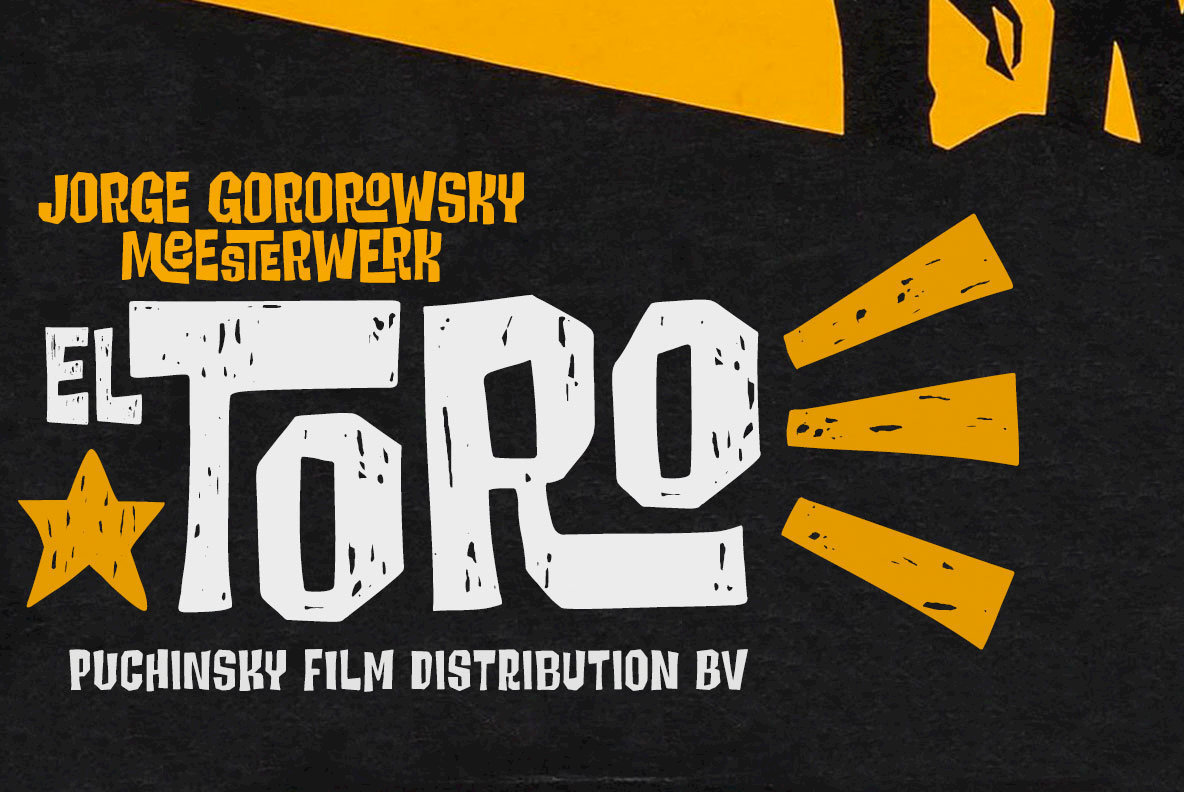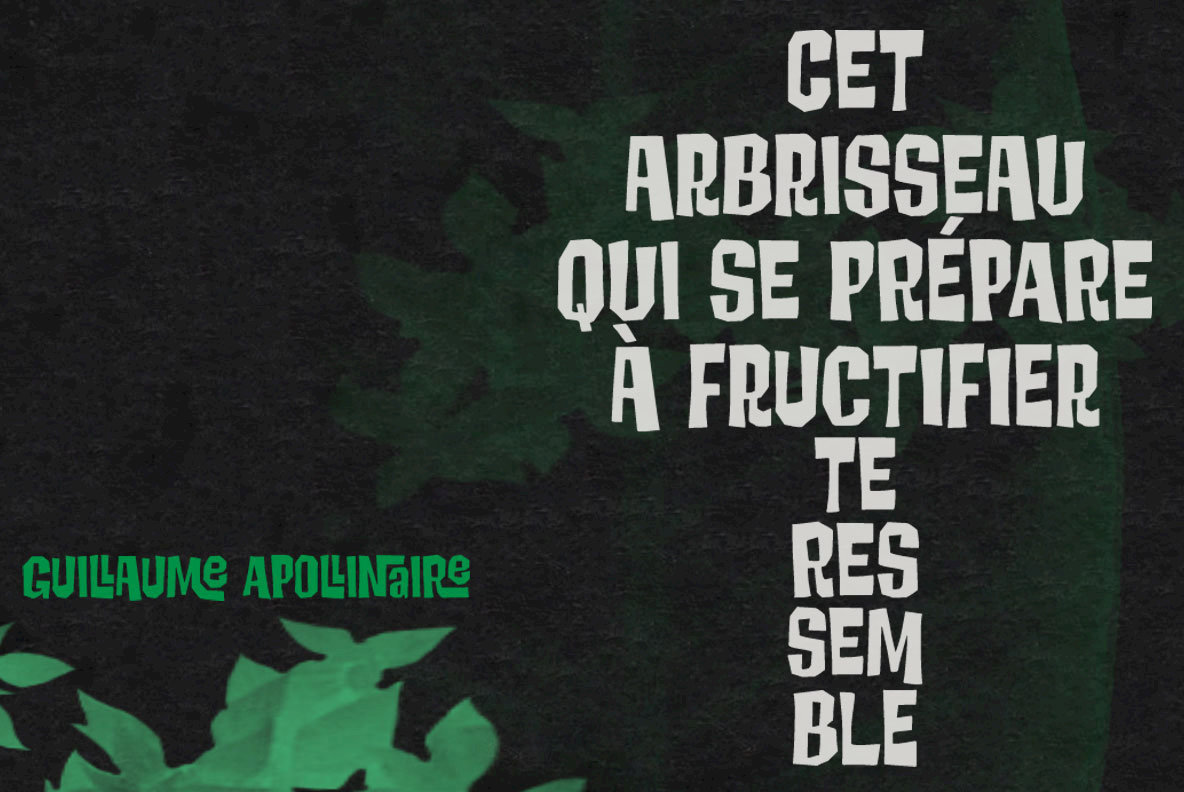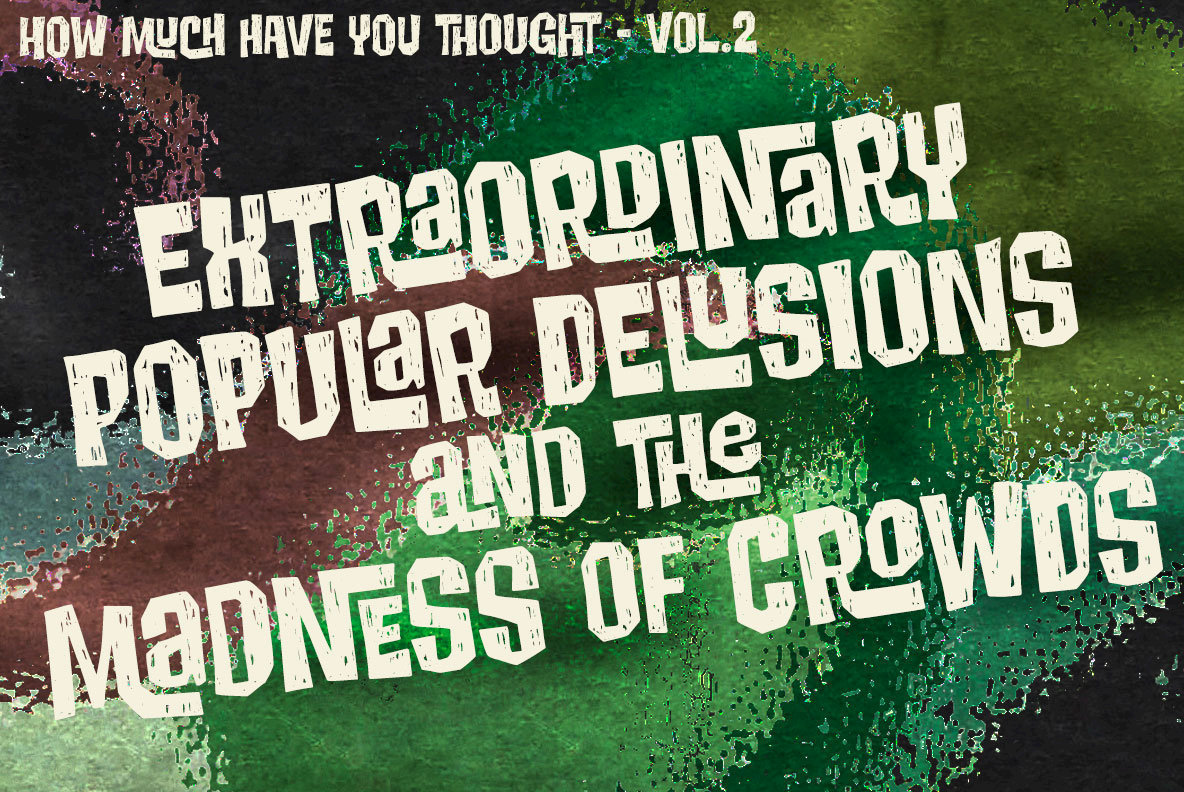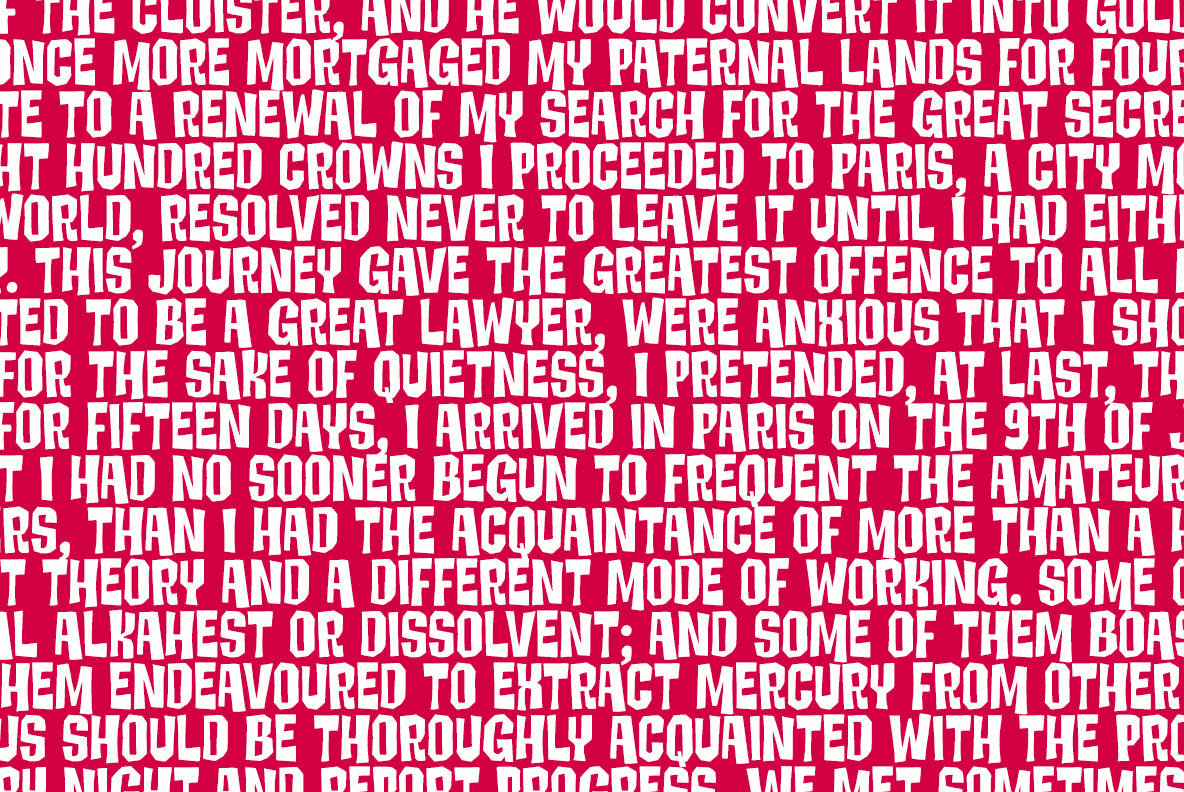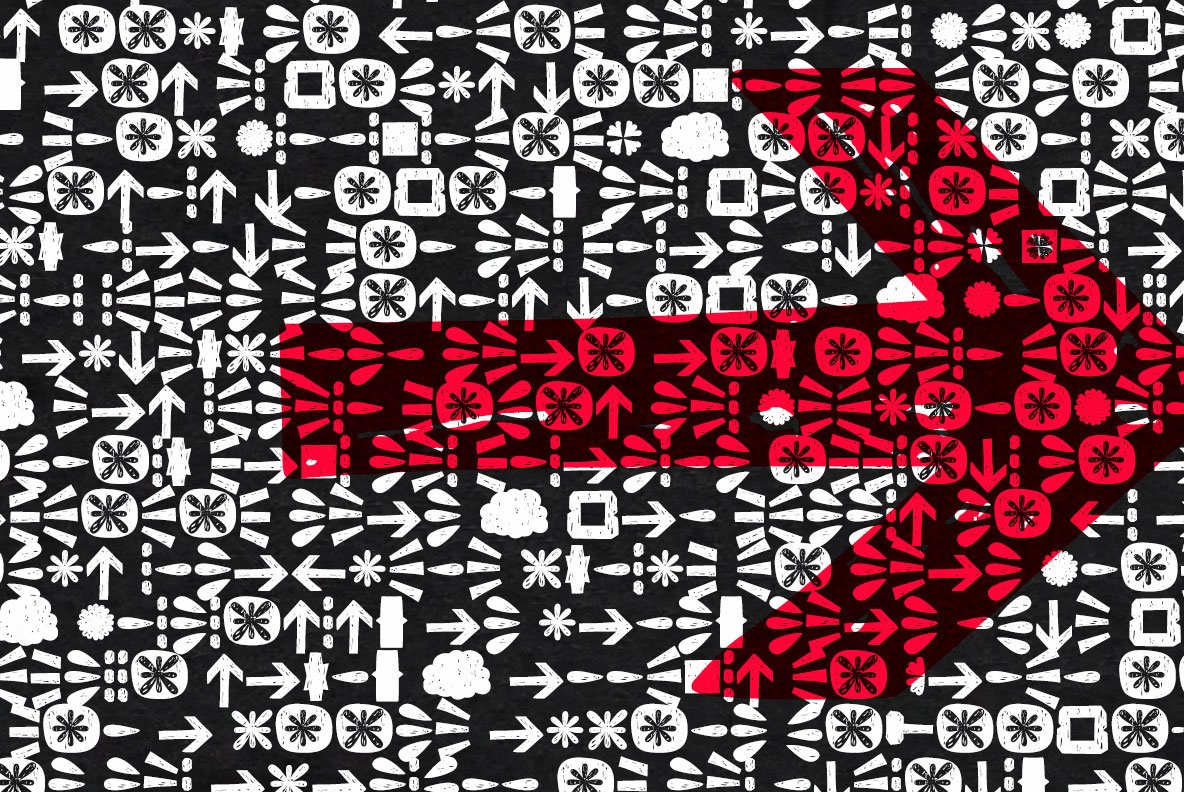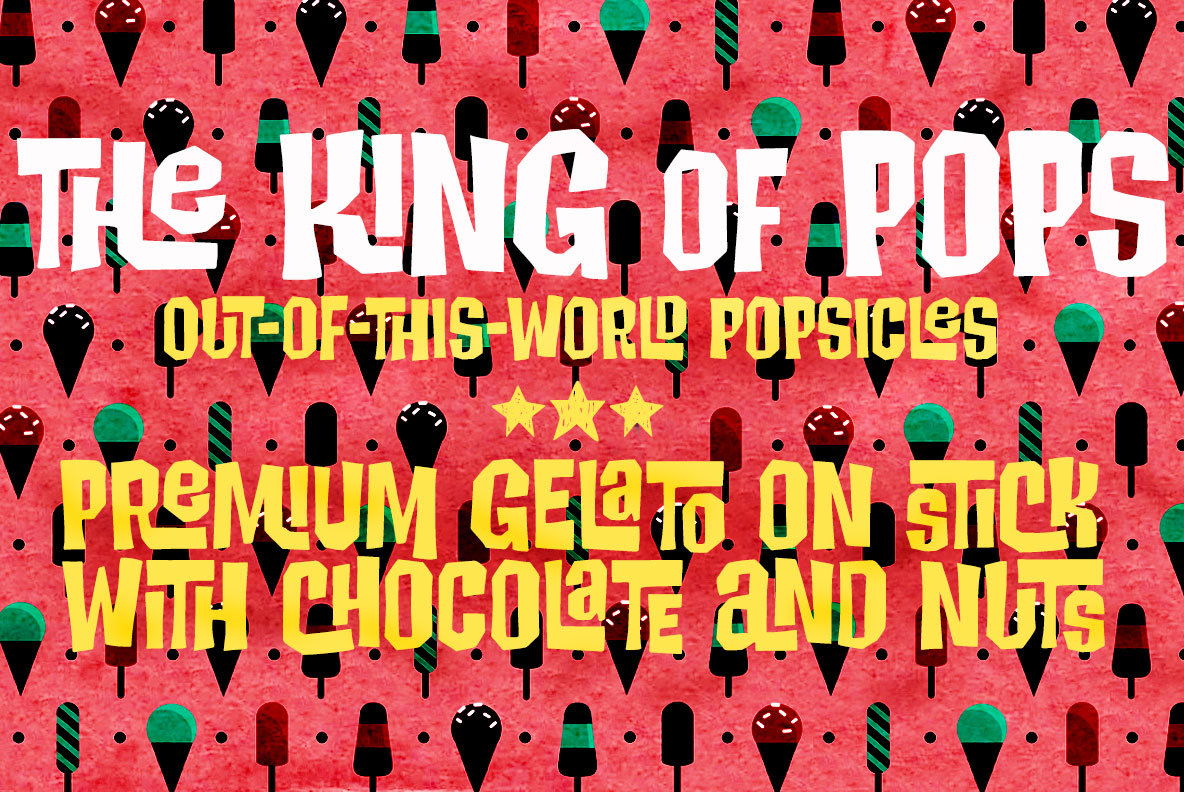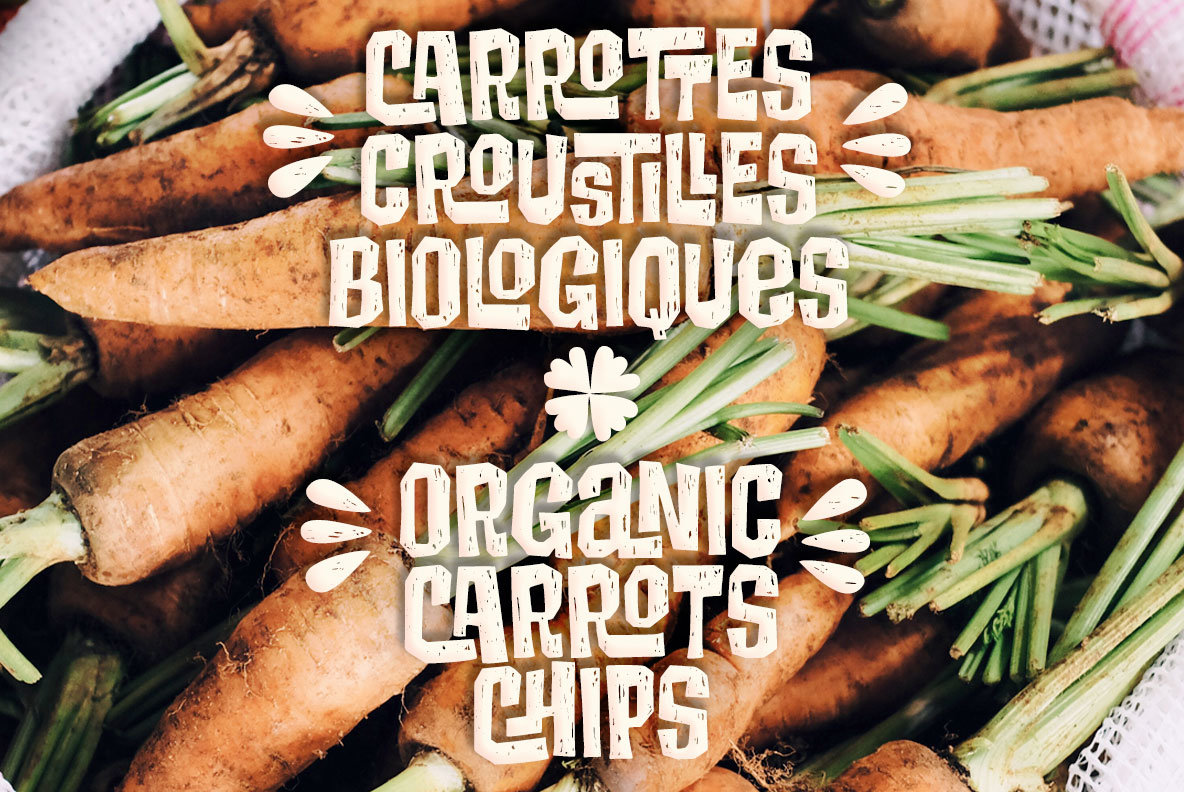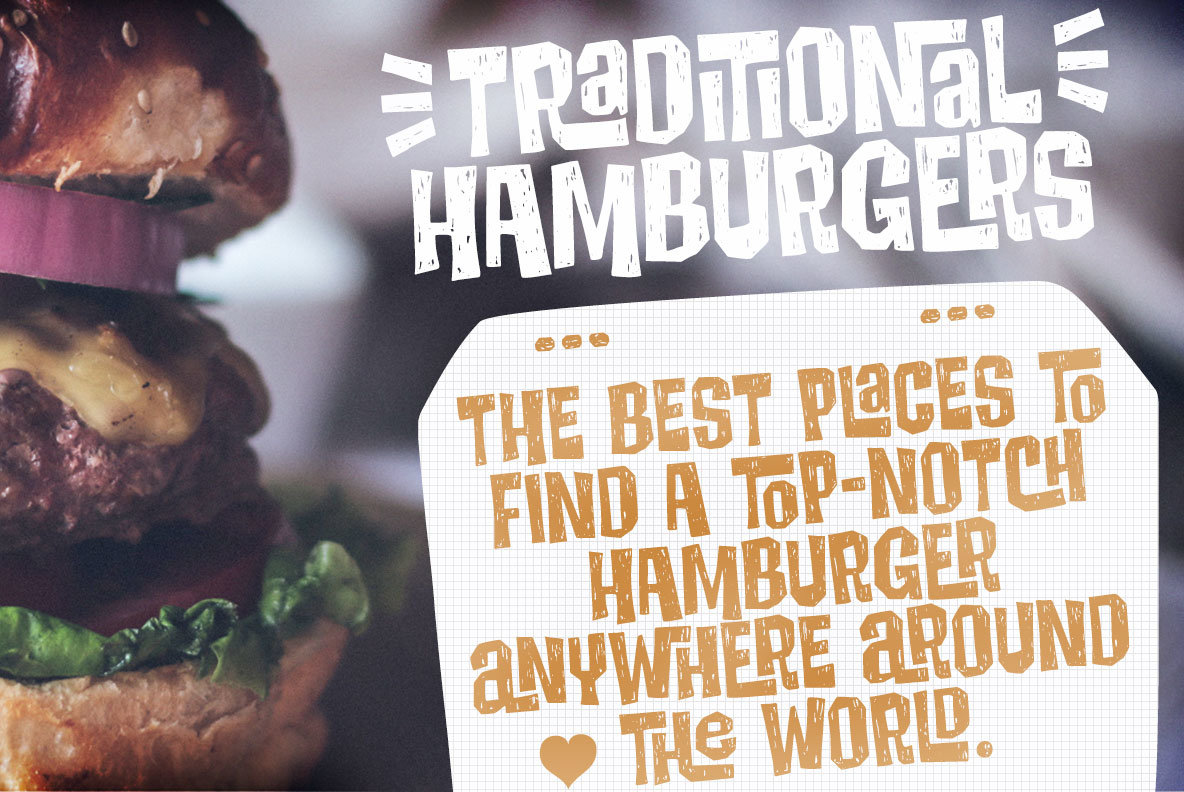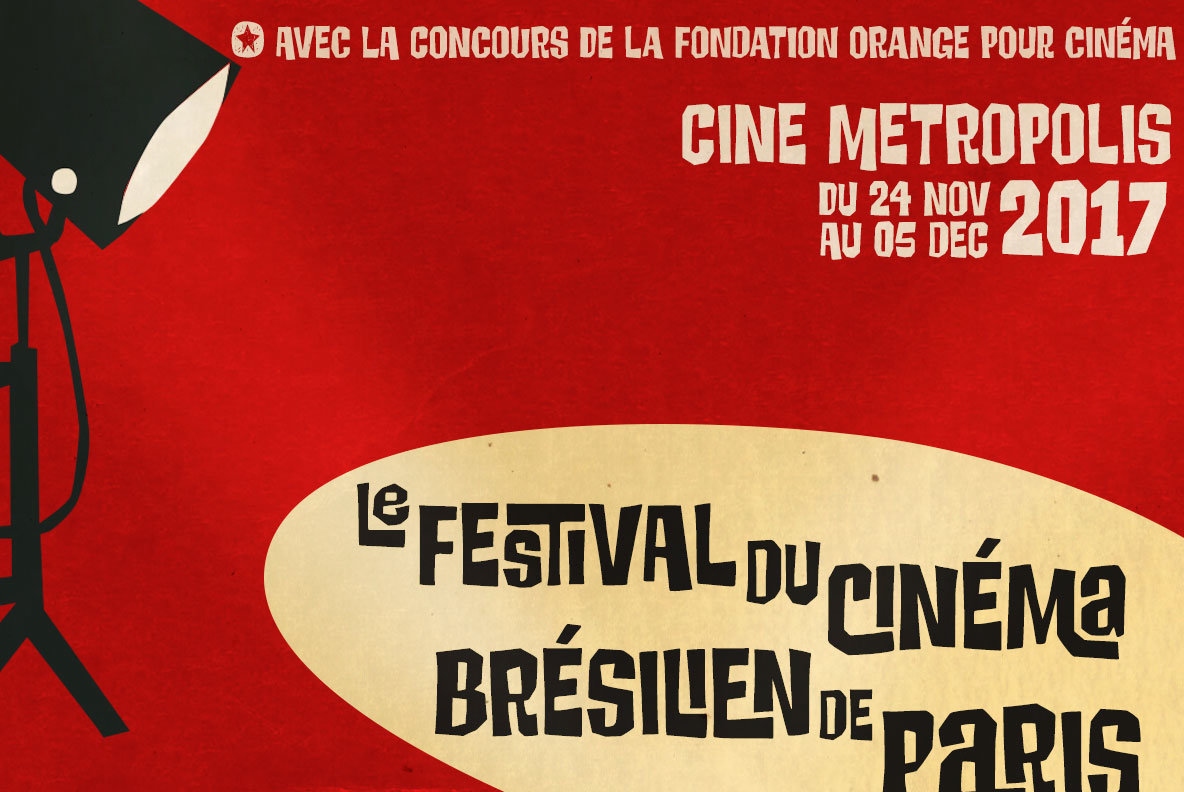
Manihot Font
Manihot
Manihot Clean
Manihot Dingbats
Manihot is a cool display sans-serif font, loaded with interlocks, ligatures and alternates to render your message in a nice eye-catching way, topped off with the usual je-ne-sais-quoi of PintassilgoPrints fonts.
The family brings rough and clean styles and yet a very useful dingbat font with dozens of tiny graphics to complement your words.